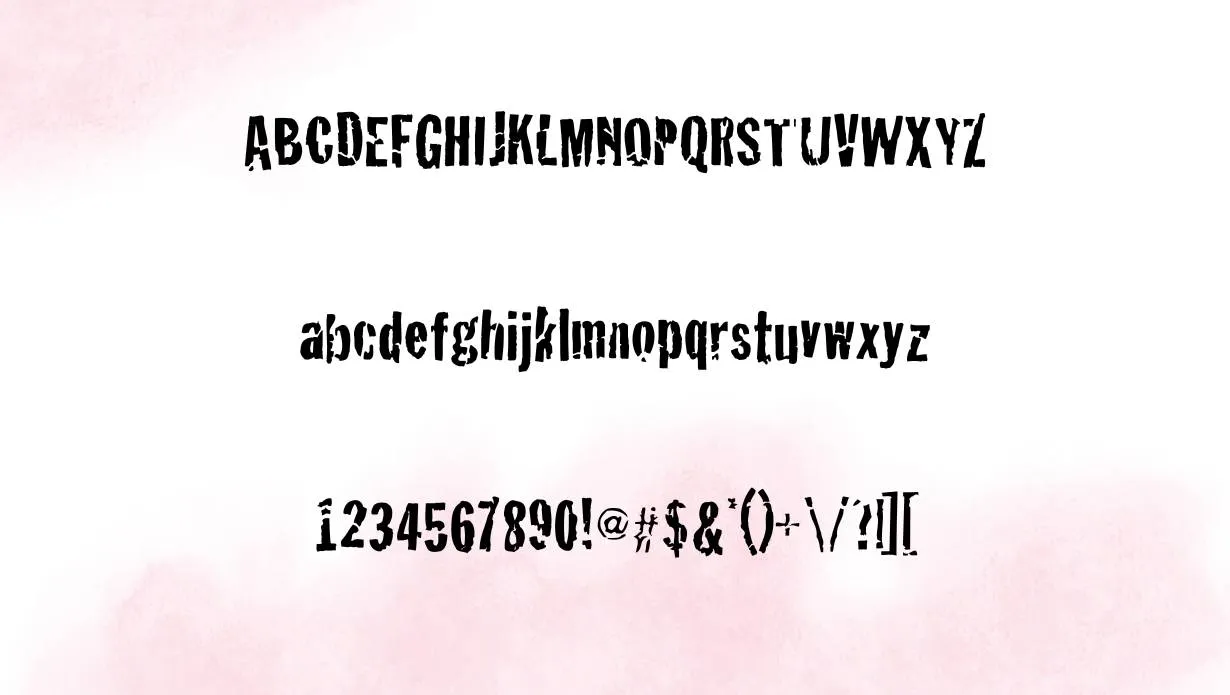
Crackhouse Font is a bold and urban typeface that brings a gritty and raw feel to designs. Its rugged edges and strong lines make it a popular choice for street art, posters, and edgy graphic designs.
| Name | Crackhouse Font |
| Designer | House Industries |
| Style | Techno |